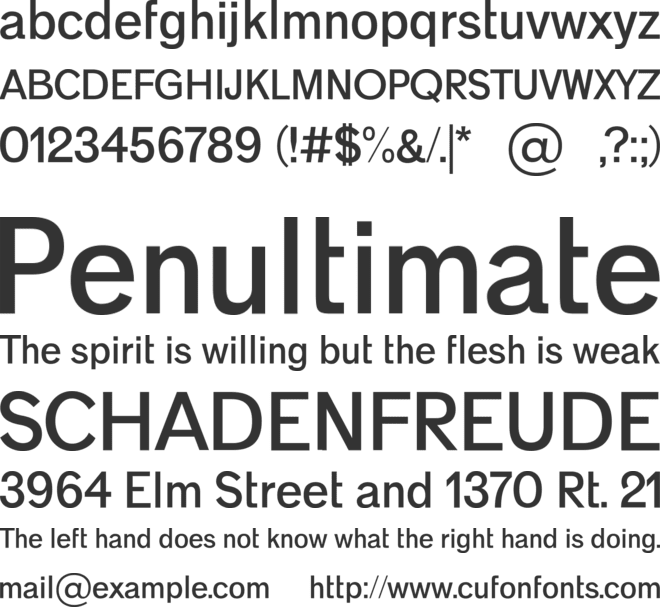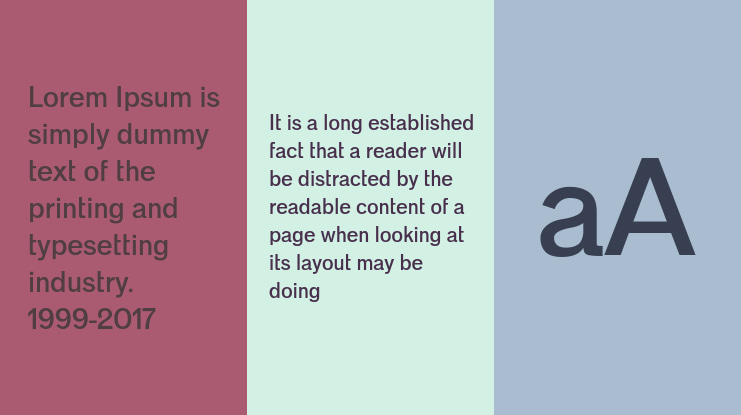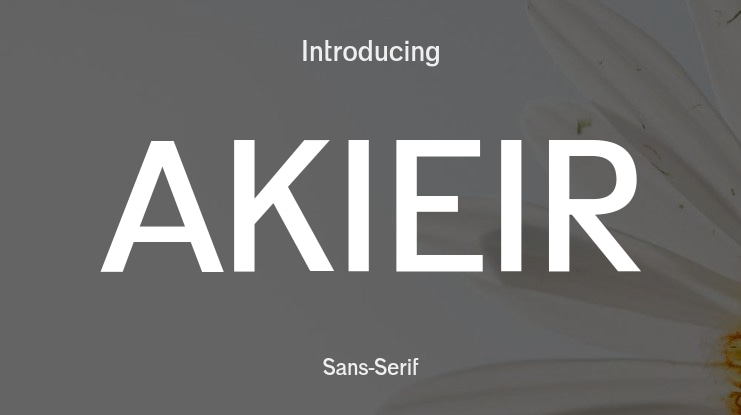
🎨 Font Name: Akieir by Minimalist Art Studio
🎨 Font description: Akieir is a bold geometric sans serif with multilingual support—ideal for tech branding, minimalist packaging, and editorial design.
✨ This is a LITE version (A–Z, lowercase, numbers, punctuation) to give you a taste of the full family.